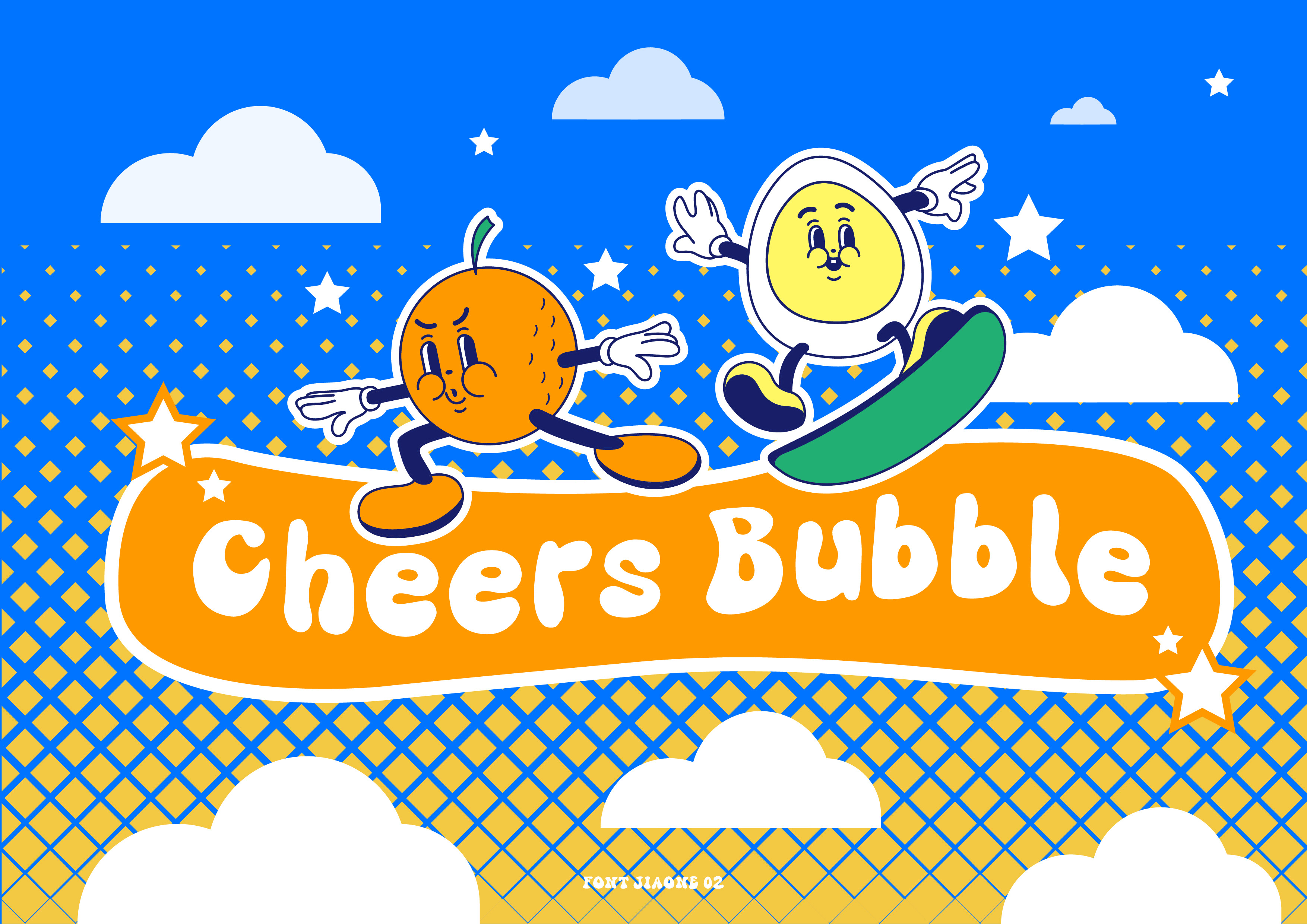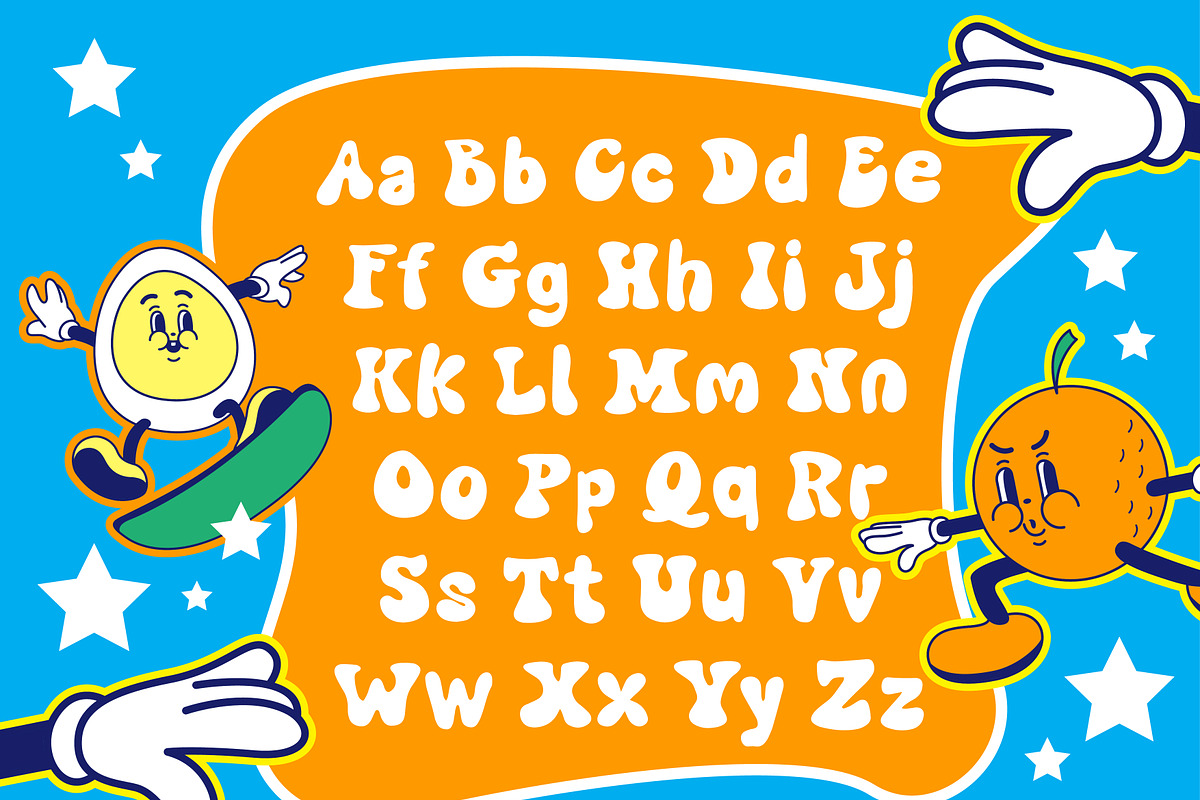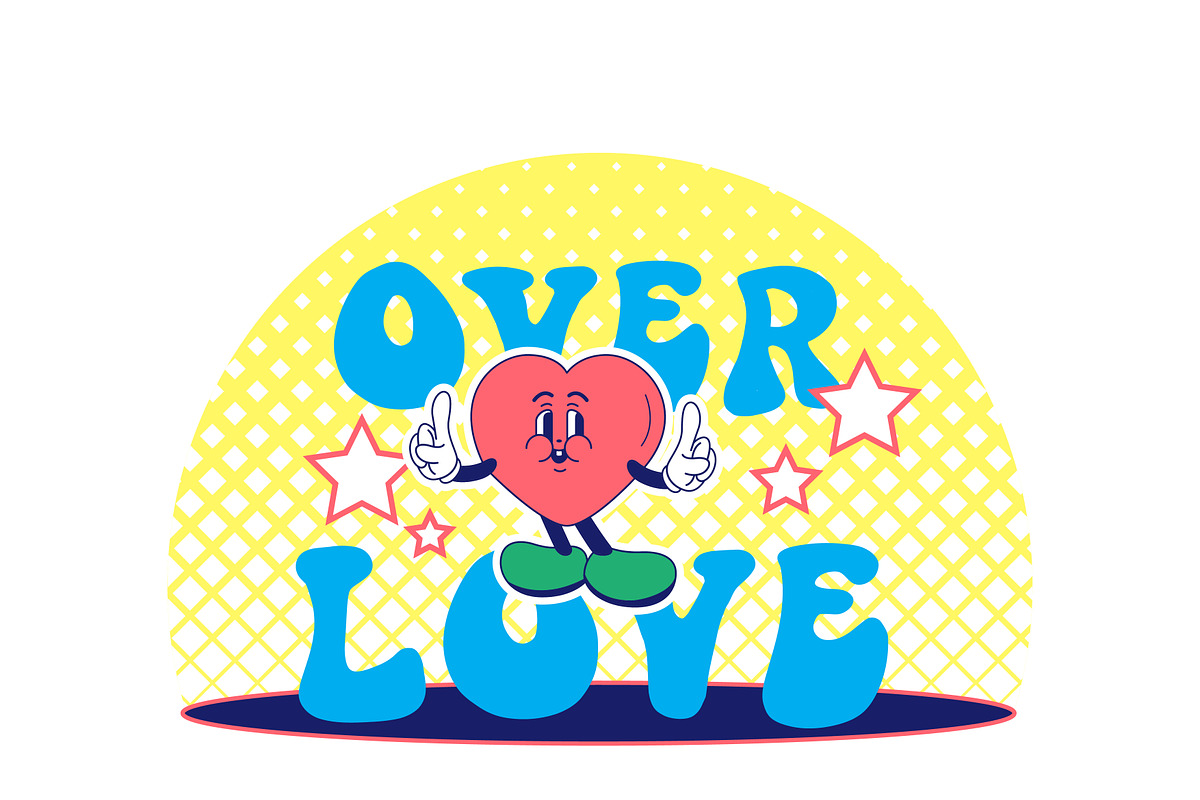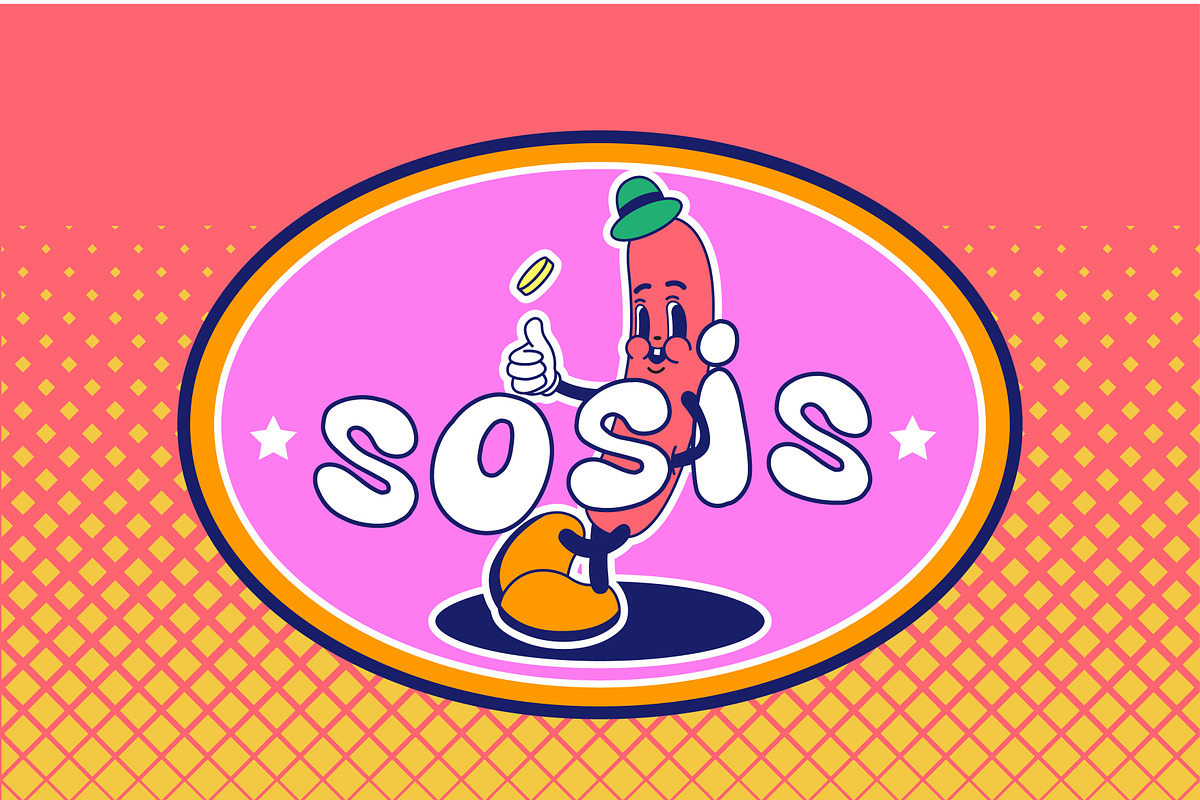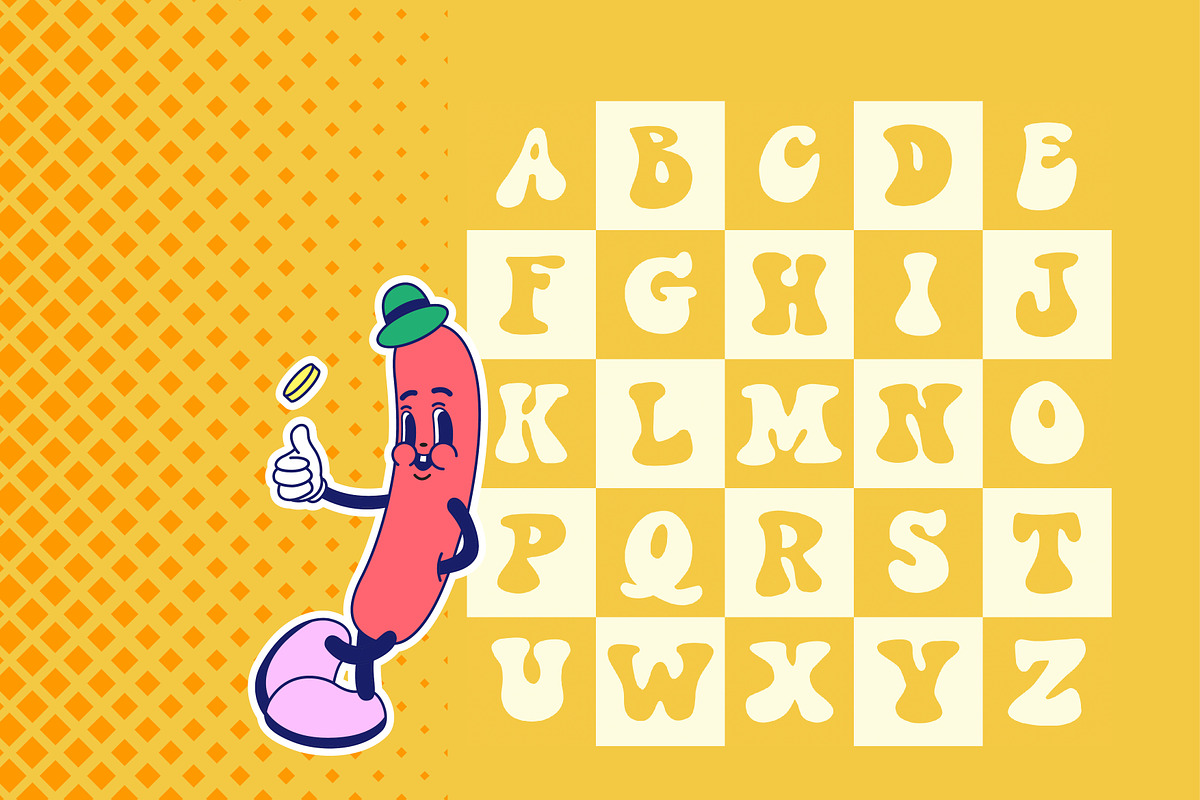
Cheers Bubble Font
This Cheers Bubble font is a display font type font with fun, playfull, humble characters. These characters consist of uppercase, lowercase letters and also some punctuation.